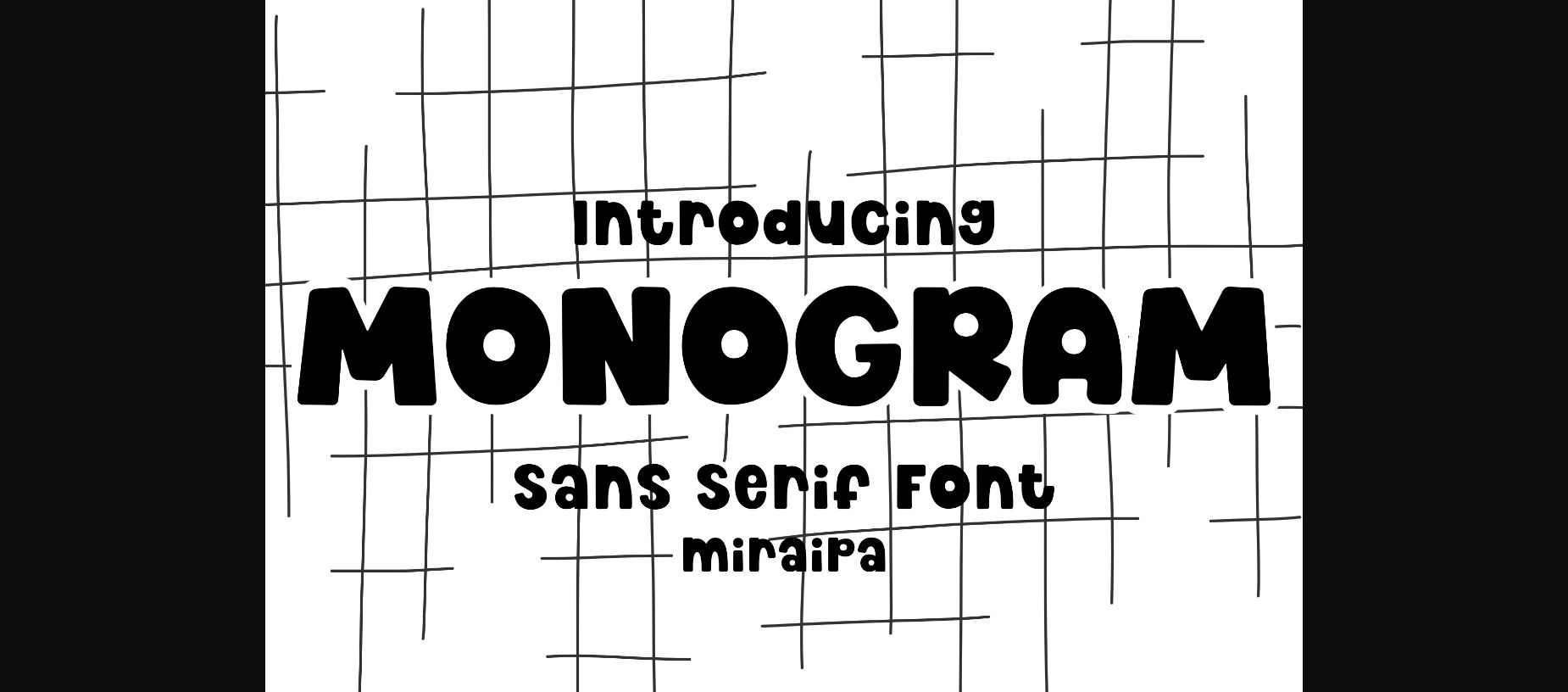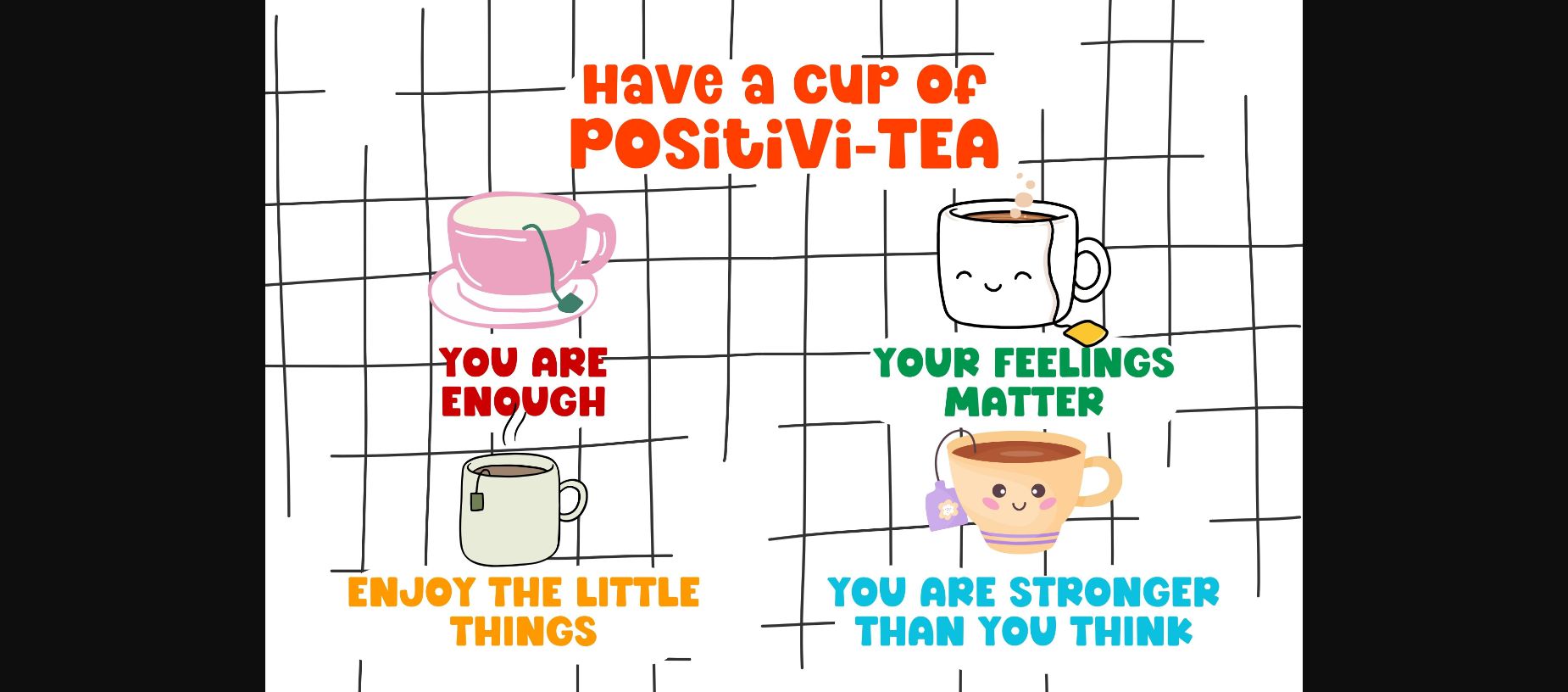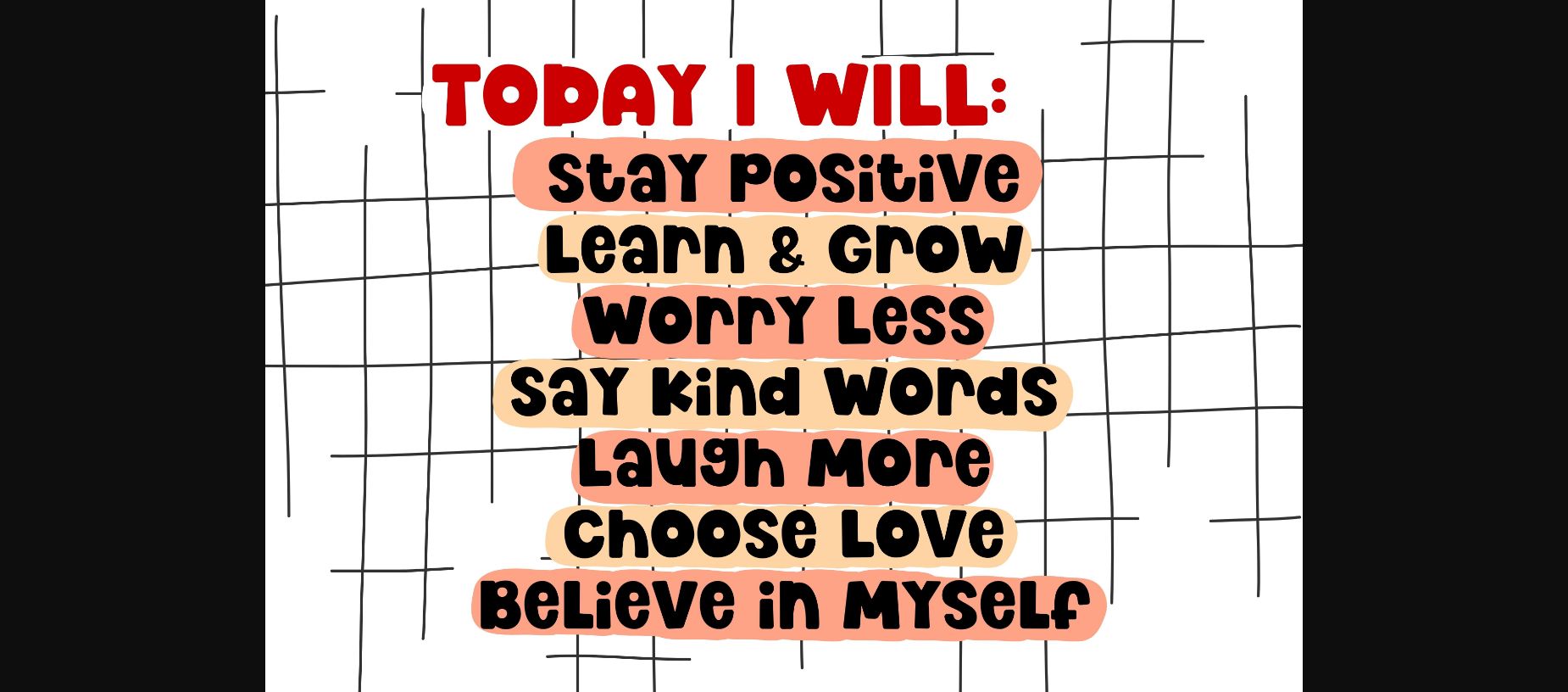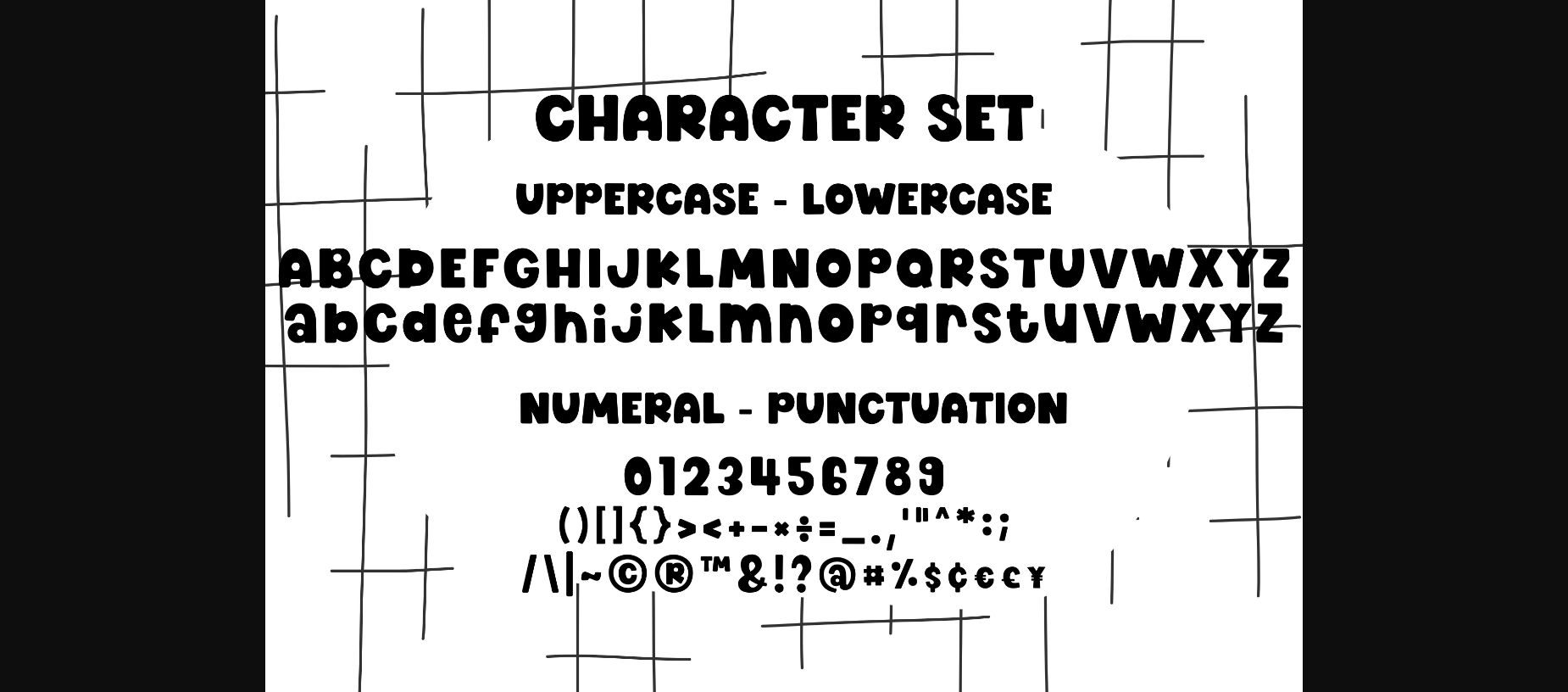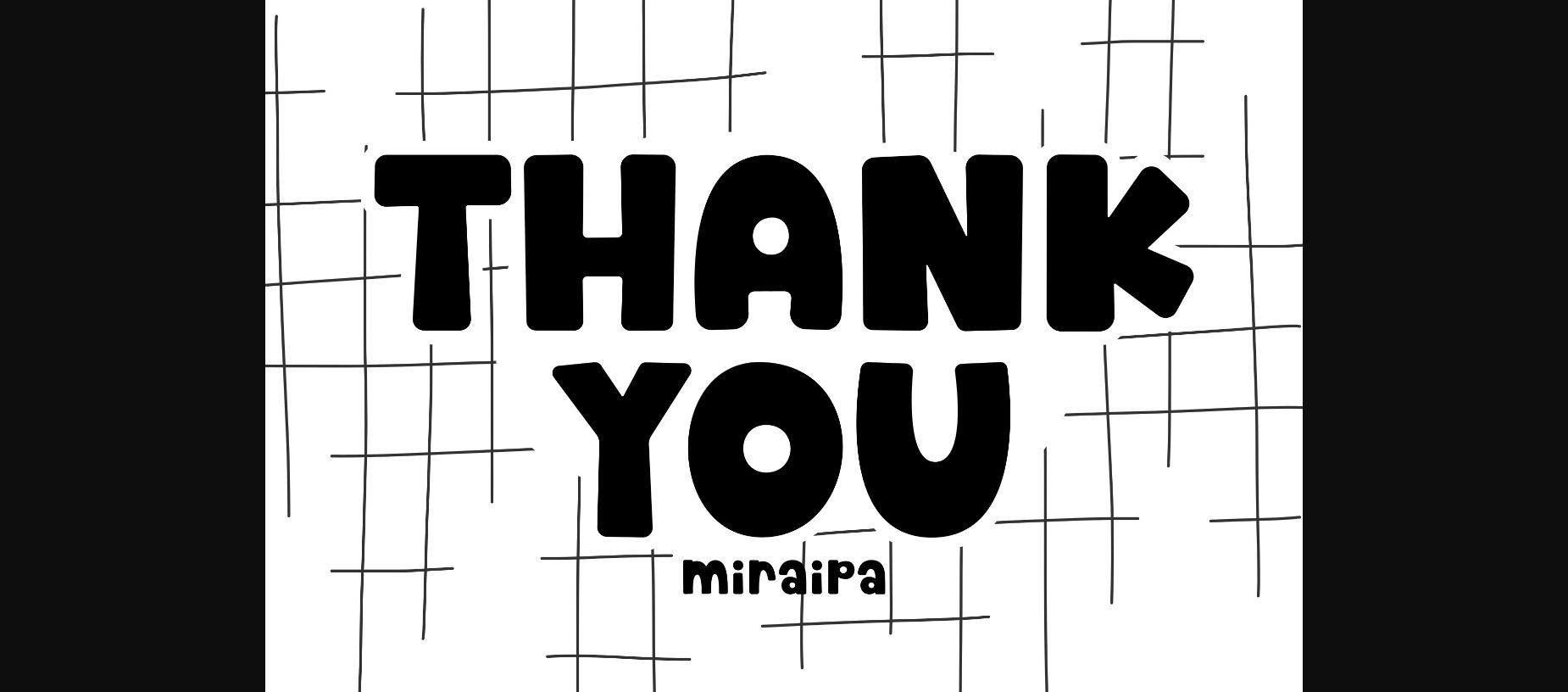
HomeSans Serif FontsMonogram Font Sans Serif Fonts Monogram Font FacebookXPinterestWhatsApp 1 of 7 ... Monogram Font Poster 2... Monogram Font Poster 3... Monogram Font Poster 4... Monogram Font Poster 5... Monogram Font Poster 6... Monogram Font Poster 7... About Monogram Font Monogram is designed in a cute and playful sans serif font style. It’s charming, whimsical, and a bit quirky. It would be awesome to your fun projects or diary planner. DOWNLOAD NOW People also explored Silfia Font Yhank Morhas Font Bebilya Font Bedtime Font Honey Sky Font Wizards Scribble Font Megumy Font Facino Dolce Font Marilla Spring Font 246 0 TagsMonogram Font Previous articleVersatile FontNext articleGoleri Sloper Font LEAVE A REPLY Cancel reply Comment: Please enter your comment! Name:* Please enter your name here Email:* You have entered an incorrect email address! Please enter your email address here Website: Save my name, email, and website in this browser for the next time I comment. Personal Use Free Heart Memory Personal Use Free Read more about this font Bajt Rounded Personal Use Free Read more about this font Lover Loves Personal Use Free Read more about this font Aseline Personal Use Free Read more about this font BLOG How to Cut Any Font on Cricut: Convert a Font to SVG (Free) Turn any font into a clean SVG so it cuts crisp on Cricut - a quick 3-step workflow using a free font-to-SVG tool. How to Install and Use Fonts on Windows, macOS, and Web Projects Exploring Font Trends Top 10 Handwritten Fonts That Elevate Your Designs